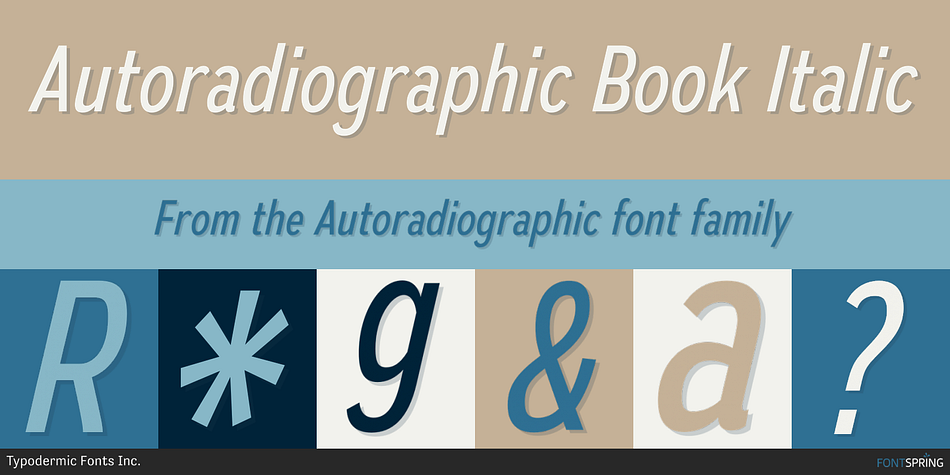
Autoradiographic Book Italic
Autoradiographic is a sans serif font family. This typeface has ten styles and was published by Typodermic Fonts Inc.
Ahoy there, folks! Have we got a typeface for you! It’s called Autoradiographic, and it’s inspired by those trusty old warning signs from back in the day. You know the ones…“Inflammable! Stay away!” And boy oh boy, does it have personality!
Back in the post-WWII era, low waistlines were all the rage—but let me tell you, strict waistline alignment was not. No, sir! That’s where Autoradiographic comes in. It’s informational, sure, but it’s also neat as a pin and chock full of personality.
And listen to this—Autoradiographic has everything you need to crunch those numbers like a pro. Mathematical symbols? Check. Fractions? Check. Currency symbols? Check, check, and check.
And for those times when you really want to make an impact, Autoradiographic’s italics are narrow and loosely spaced. Now that’s what I call a typeface with some serious sass!